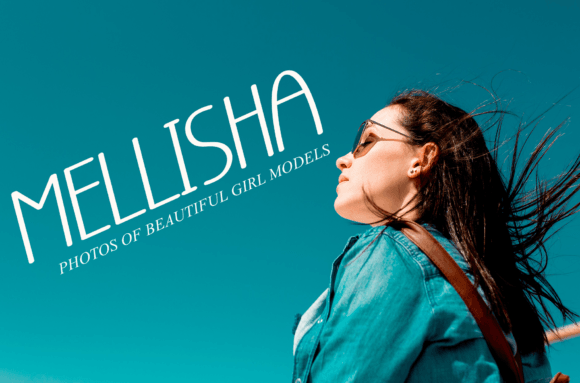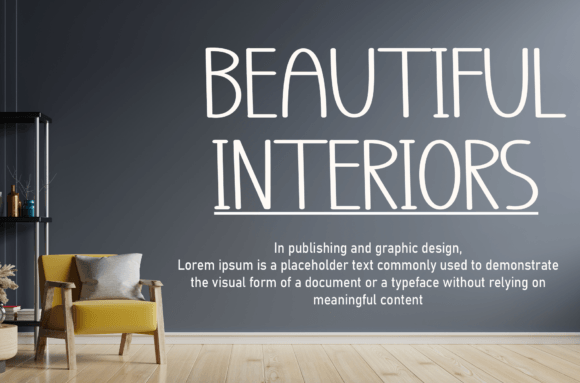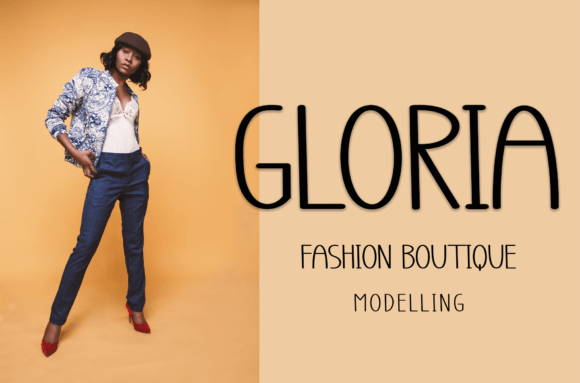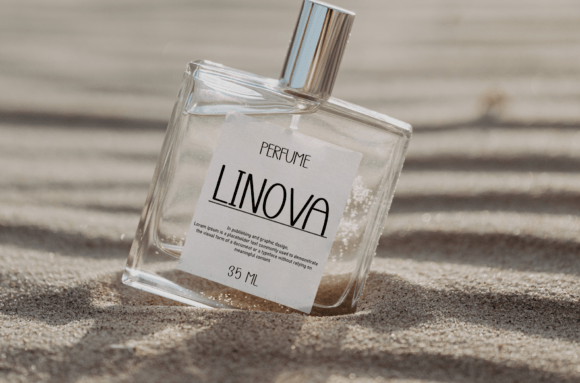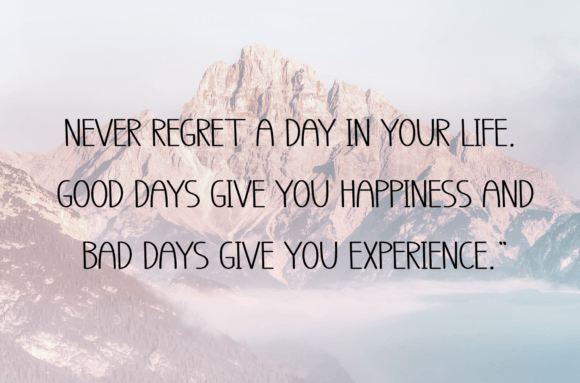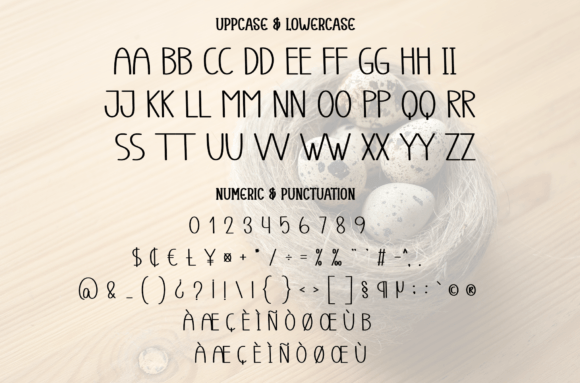
Ester Nest Font: The Sweet and Friendly Handwritten Font for Your Creative Projects
Are you a designer or crafter looking for a font that can add a touch of sweetness and friendliness to your creative projects? Look no further than Ester Nest Font! This beautiful handwritten font is perfect for writing wedding invitations, cards, or any other design that might need a fun and playful touch.
What is Ester Nest Font?
Ester Nest Font is a sweet and friendly handwritten font that is fresh and neat. It’s ideal for anyone who wants to add a personal touch to their designs, whether it’s for a wedding, a birthday, or just a special occasion. This font is perfect for creating beautiful and unique designs that will stand out from the crowd.
Characteristics of Ester Nest Font
Ester Nest Font has several characteristics that make it a great choice for designers and crafters. Some of its key features include:
• Sweet and friendly: Ester Nest Font has a warm and inviting feel that’s perfect for creating designs that are sweet and friendly.
• Handwritten: This font has a beautiful handwritten feel that’s perfect for creating unique and personalized designs.
• Fresh and neat: Ester Nest Font is clean and easy to read, making it perfect for use in a variety of designs.
Uses for Ester Nest Font
Ester Nest Font is a versatile font that can be used in a variety of creative projects. Some of the most popular uses for this font include:
• Wedding invitations: Ester Nest Font is perfect for creating beautiful and unique wedding invitations that will set the tone for the big day.
• Cards: This font is great for creating handmade cards for special occasions, such as birthdays, anniversaries, and holidays.
• Designs: Ester Nest Font can be used in a variety of designs, including posters, flyers, and brochures.
Why Choose Ester Nest Font?
There are many reasons why Ester Nest Font is a great choice for designers and crafters. Some of the benefits of using this font include:
• Unique and personalized: Ester Nest Font allows you to create unique and personalized designs that will stand out from the crowd.
• Easy to read: This font is clean and easy to read, making it perfect for use in a variety of designs.
• Versatile: Ester Nest Font can be used in a variety of creative projects, from wedding invitations to handmade cards.
Tips for Using Ester Nest Font
Here are a few tips for using Ester Nest Font in your creative projects:
• Pair with other fonts: Ester Nest Font pairs well with other fonts, such as serif and sans-serif fonts.
• Use in combination with images: This font looks great when used in combination with images, such as photographs and illustrations.
• Experiment with colors: Ester Nest Font can be used with a variety of colors, from bright and bold to soft and pastel.
Ester Nest Font is a sweet and friendly handwritten font that’s perfect for designers and crafters who want to add a personal touch to their creative projects. With its fresh and neat feel, this font is ideal for writing wedding invitations, cards, or any other design that might need a fun and playful touch. Whether you’re a professional designer or a crafty DIY enthusiast, Ester Nest Font is a great choice for anyone who wants to create unique and beautiful designs.
So why not give Ester Nest Font a try? With its versatility, ease of use, and beautiful handwritten feel, it’s sure to become a favorite in your design toolkit.